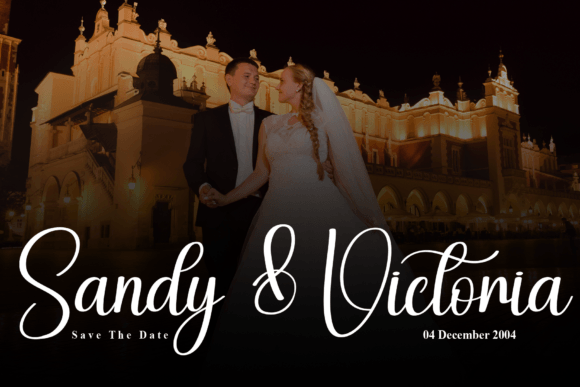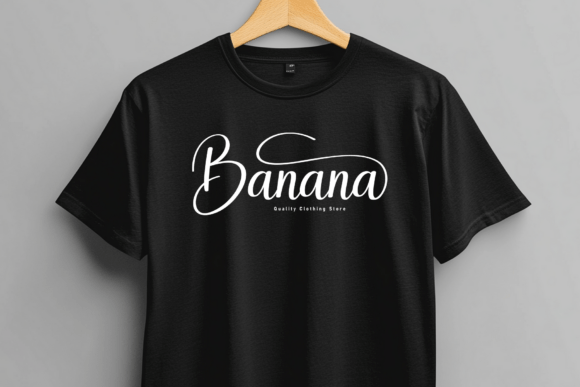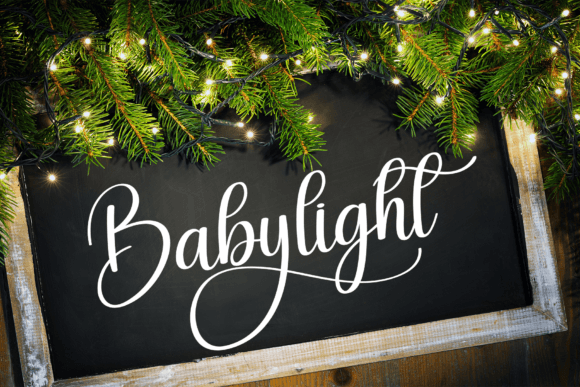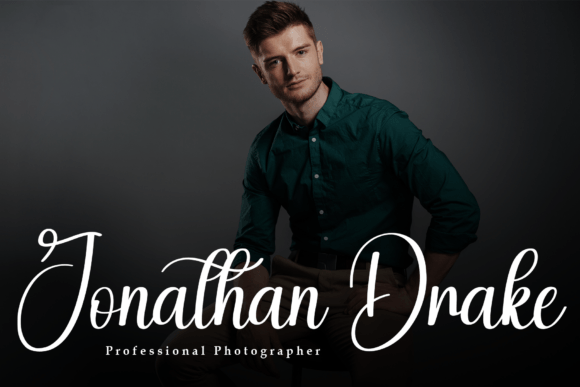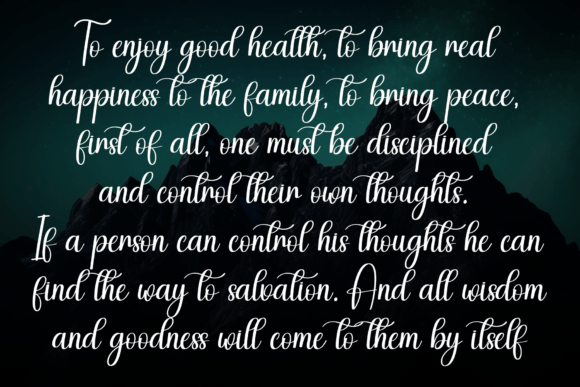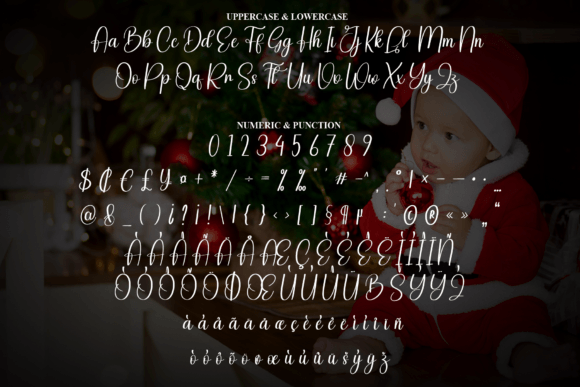
Discover the Magic of Babysanta Font
As a designer, there’s nothing quite like the thrill of finding the perfect font to elevate a project. It’s that moment when the words on the page come alive, and the message shines through. For many of us, it’s a moment that sparks creativity and sets the tone for the rest of the design process.
One font that’s sure to bring a touch of magic to your holiday designs is the Babysanta Font. This charming, elegant script font is designed to add a warm and festive touch to holiday cards, invitations, and decorations. With its smooth, flowing letters, Babysanta Font is perfect for creating a sense of joy and celebration that’s hard to resist.
As a valuable resource for designers, Babysanta Font offers a unique opportunity to add a playful yet classy feel to your designs. Whether you’re working on a holiday project or just looking to add some extra flair to your designs, Babysanta Font is a great choice to consider.
Babysanta Font Key Features
- Unique Characteristics: Whimsical and playful design, ideal for children’s products and festive occasions
Babysanta Font Review
Overall, I think Babysanta Font has some interesting aspects to it, but it also has some limitations that might make it less appealing to some users.
- Unique Design: Babysanta Font has a distinct, whimsical design that’s perfect for creating a festive atmosphere. It’s ideal for Christmas-themed projects or anything that needs a playful touch.
- Customization Options: Babysanta Font comes with various font styles, including bold, italic, and condensed versions, giving you more flexibility in your design.
- Limited Character Set: The font only includes a basic character set, which might not be suitable for users who need a font with a wide range of characters.
- Not Suitable for Body Text: Due to its playful design, Babysanta Font might not be the best choice for body text or large blocks of text.
- Lack of Scalability: The font might not be as readable at smaller font sizes, which could affect its usability in certain projects.
Overall, Babysanta Font is a great choice for projects that require a festive, whimsical design. However, it might not be the best option for users who need a font with a wide range of characters or a more traditional design.
The Babysanta Font is ideal for use in Christmas-themed designs, such as greeting cards, posters, and social media graphics.
Use the font to create a fun and playful tone, and pair it with bold graphics and bright colors for maximum impact.
Some other common use cases for the Babysanta Font include:
1. Holiday party invitations and decorations.